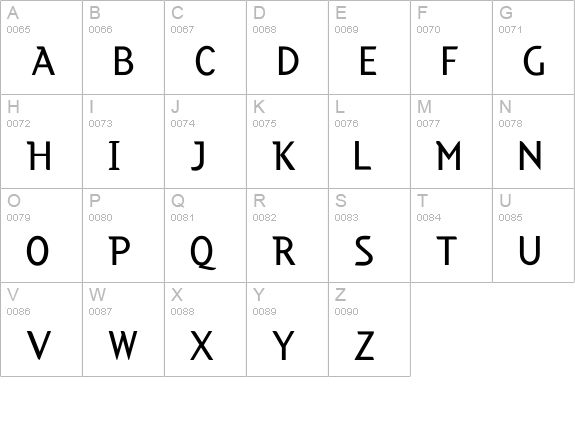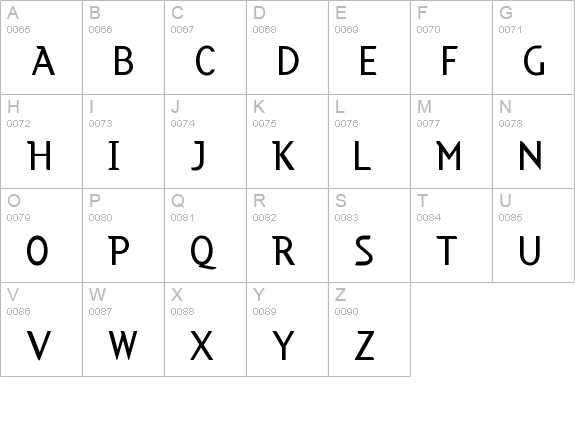
Cuban-Light is a refined, elegant variant in the Cuban typeface family \xE2\x80\x94 well suited to elegant body text, refined sub-headings, and luxury branding.
Introducing Cuban-Light font, a stylish and elegant typeface that exudes sophistication and charm. Designed with clean lines and a modern feel, Cuban-Light is perfect for a wide range of design projects, from branding to editorial design. This versatile font features a unique blend of classic elegance and contemporary flair, making it a perfect choice for adding a touch of class to any project. Its sleek and timeless design is sure to make a statement and leave a lasting impression. Best of all, Cuban-Light font is available for free download at FontsMarket.com. Whether you're a seasoned designer or just starting out, this font is a must-have in your collection. Download Cuban-Light today and elevate your designs to the next level!